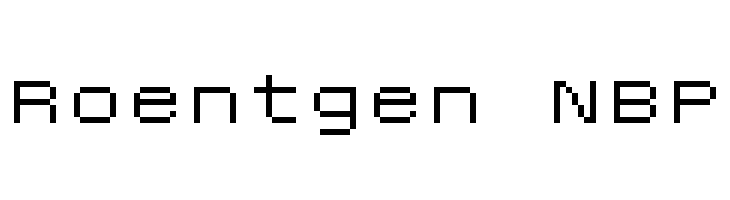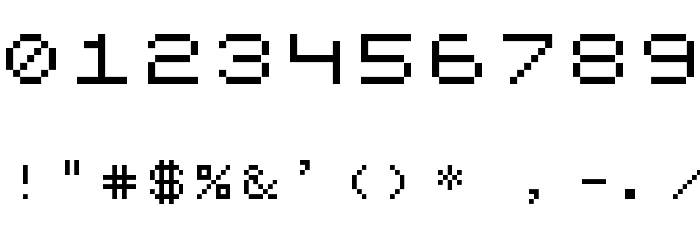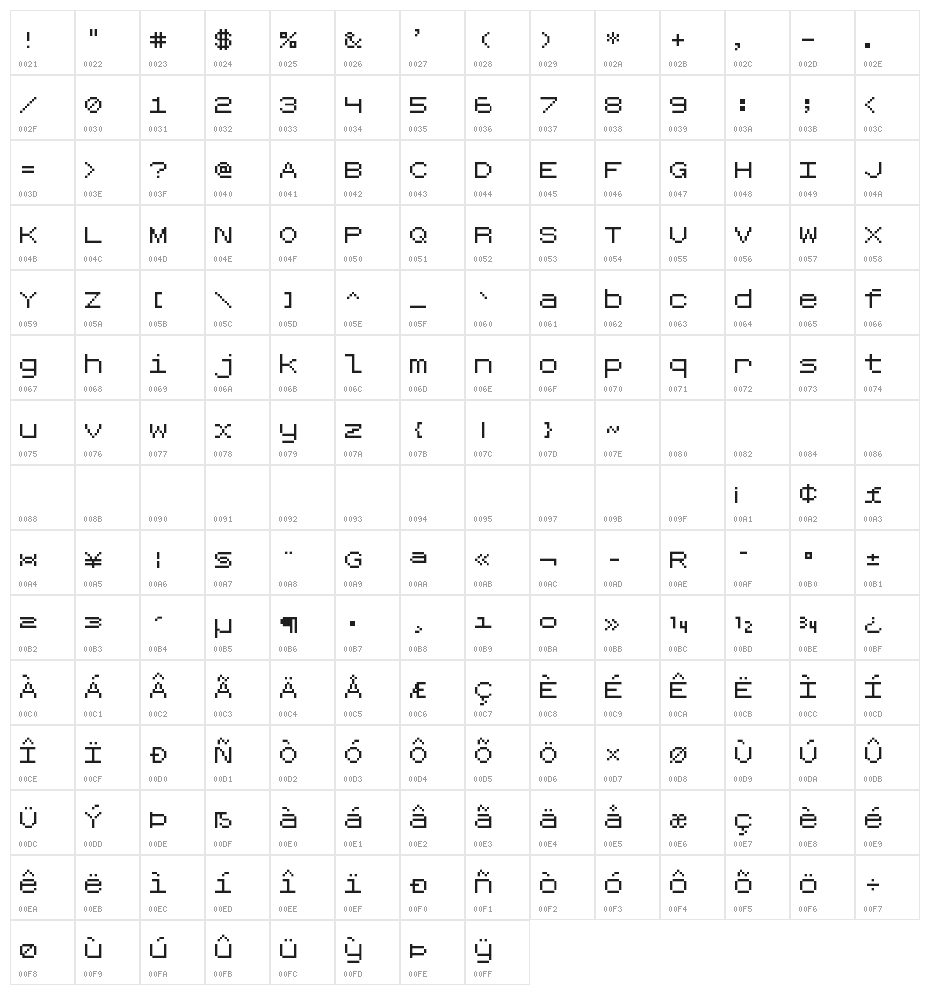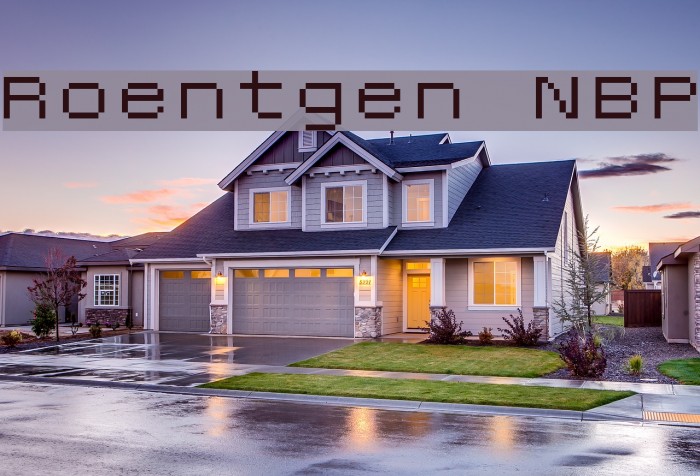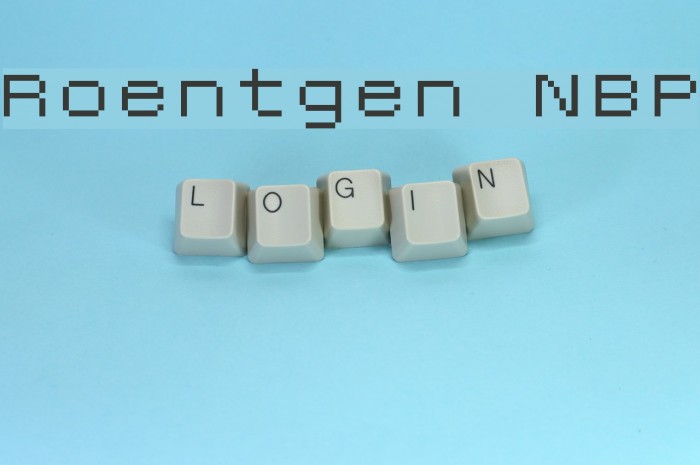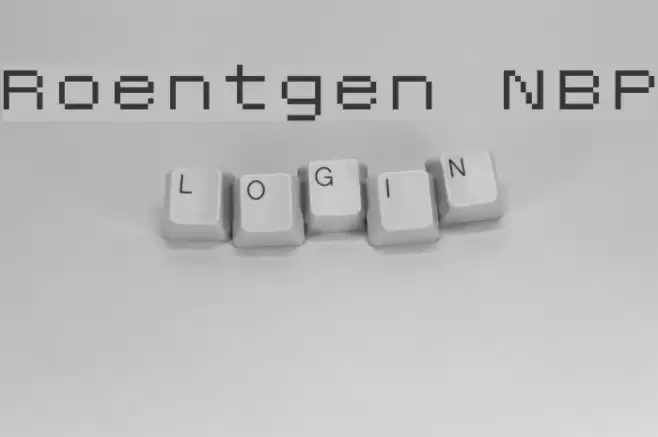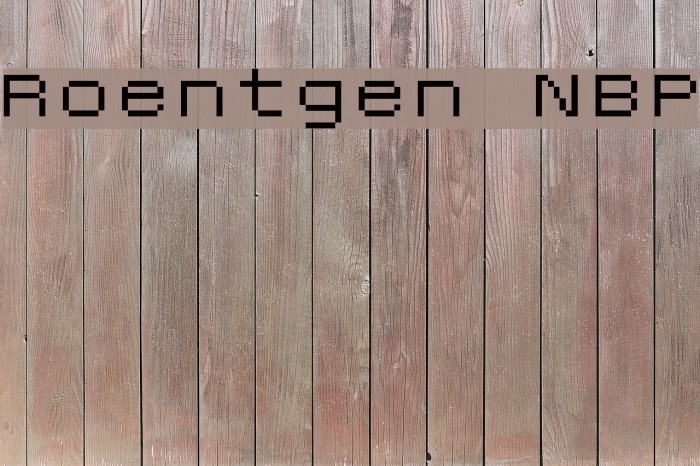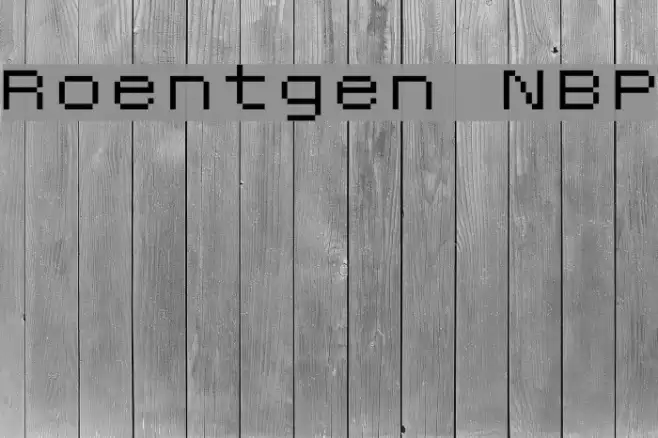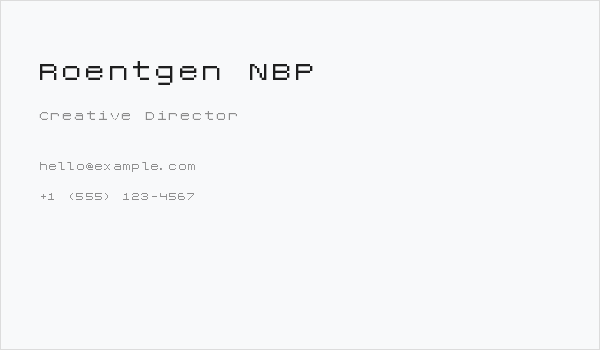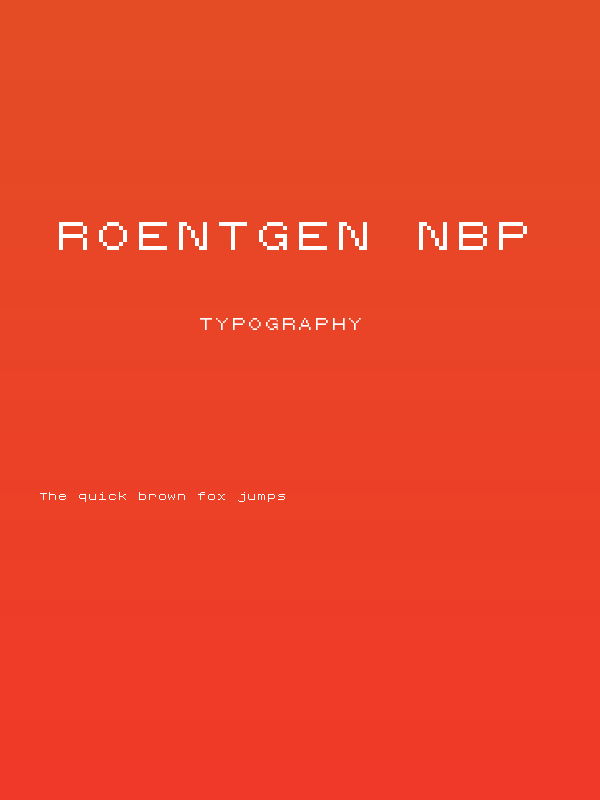
Roentgen NBP Font
Roentgen NBP Description
This font features a pixelated, monospaced design reminiscent of early digital displays and retro computing. Each character is constructed with a uniform grid-like pattern, giving it a distinctly digital and technical appearance. The uppercase and lowercase letters maintain a consistent height, contributing to its monospaced nature. The numerals and special characters follow the same pixelated style, ensuring uniformity across all glyphs. This font evokes a sense of nostalgia for vintage technology while maintaining clarity and readability. Its structured form makes it ideal for applications where a digital or retro aesthetic is desired.
| Use Case | Headlines, Digital displays, Coding |
| Proposed Projects | Ideal for retro-themed designs, digital art, coding environments, or any project requiring a vintage tech look. |